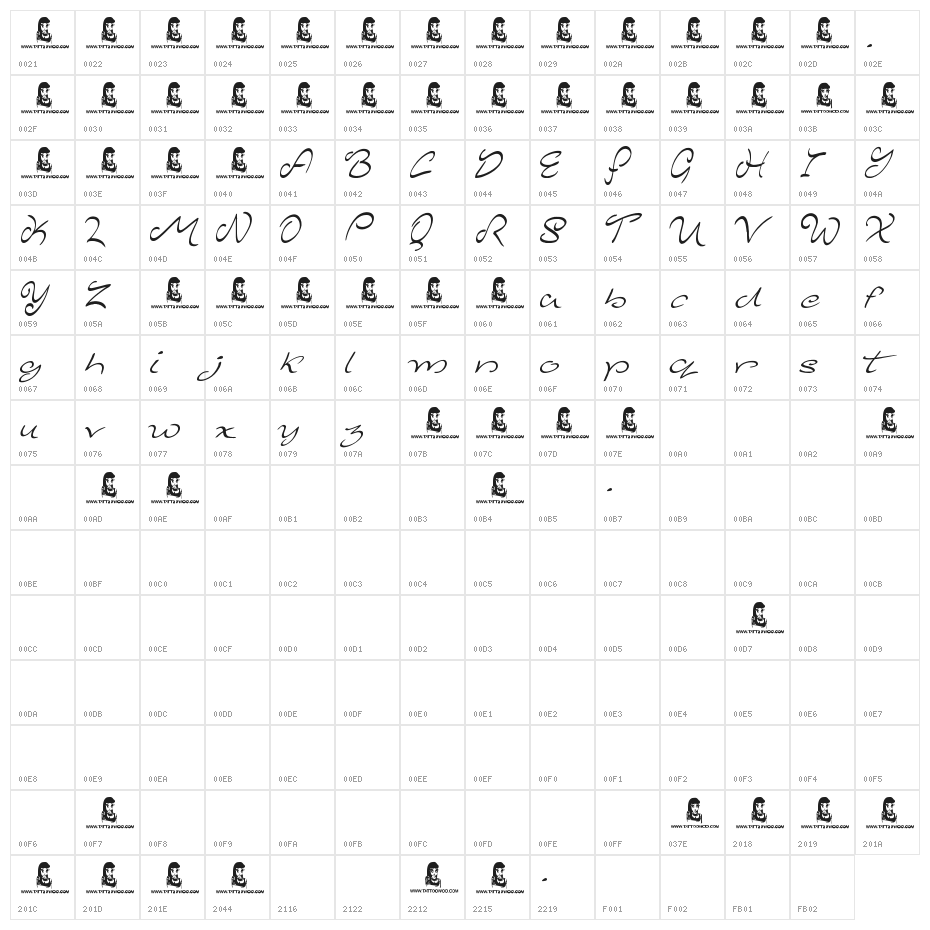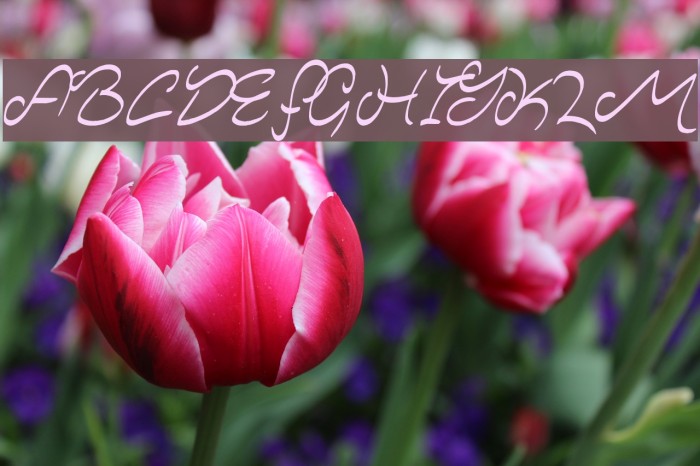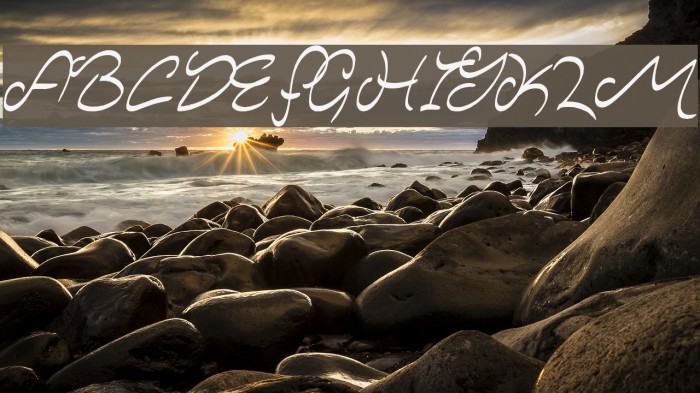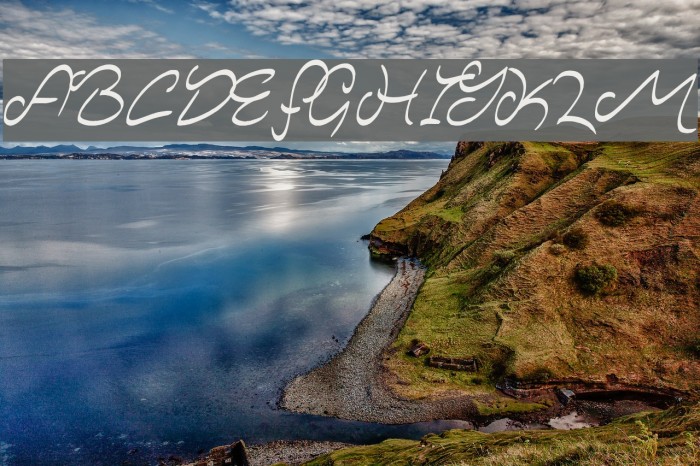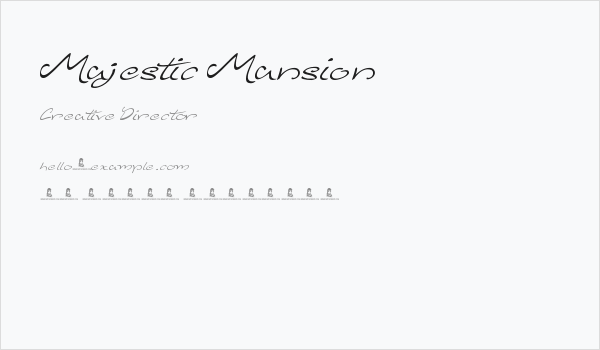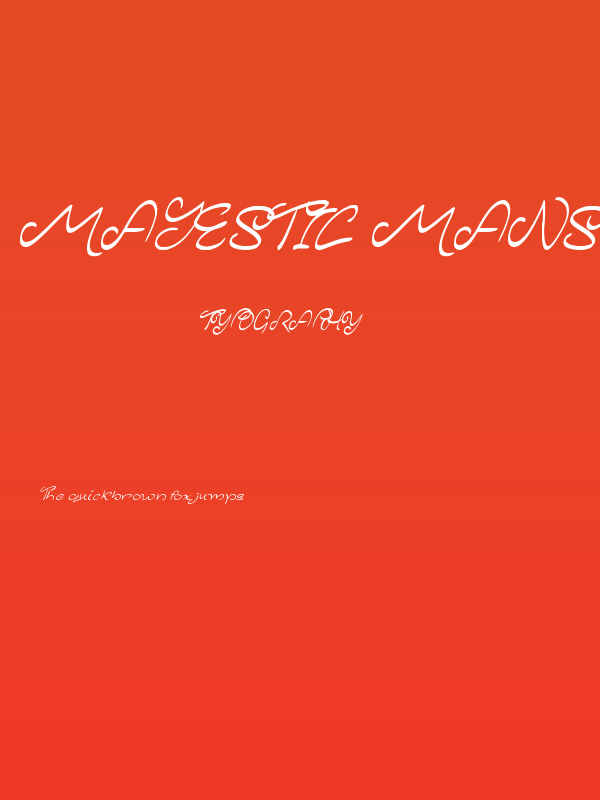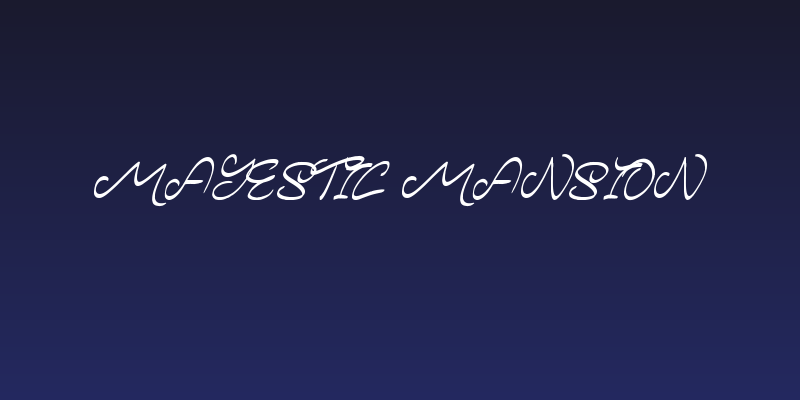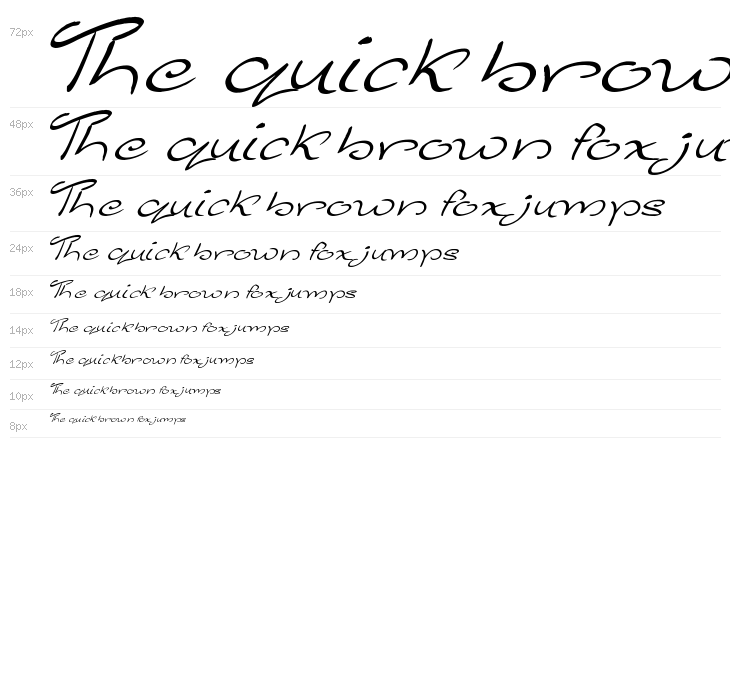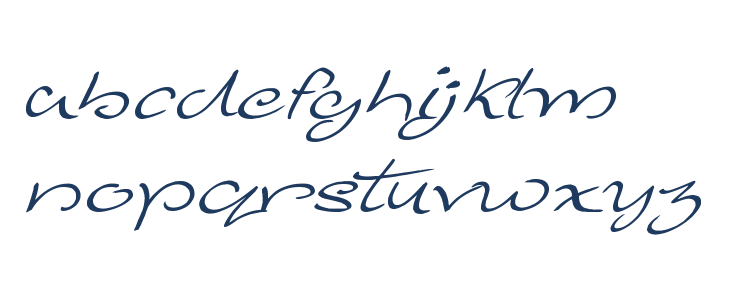
Majestic Mansion Font
Majestic Mansion Description
This elegant script font features a flowing, cursive style with graceful curves and loops. The characters are connected, creating a seamless and sophisticated appearance. The uppercase letters are ornate, with distinctive flourishes that add a touch of luxury and refinement. The lowercase letters maintain a consistent flow, enhancing readability while preserving the decorative nature. This font exudes a sense of elegance and formality, making it ideal for upscale designs. The overall appearance is both artistic and legible, suitable for a variety of creative applications.
Overall StyleElegant
Use CaseLogos, Invitations, Decorative text
Proposed ProjectsIdeal for wedding invitations, luxury branding, elegant stationery, and formal event materials.